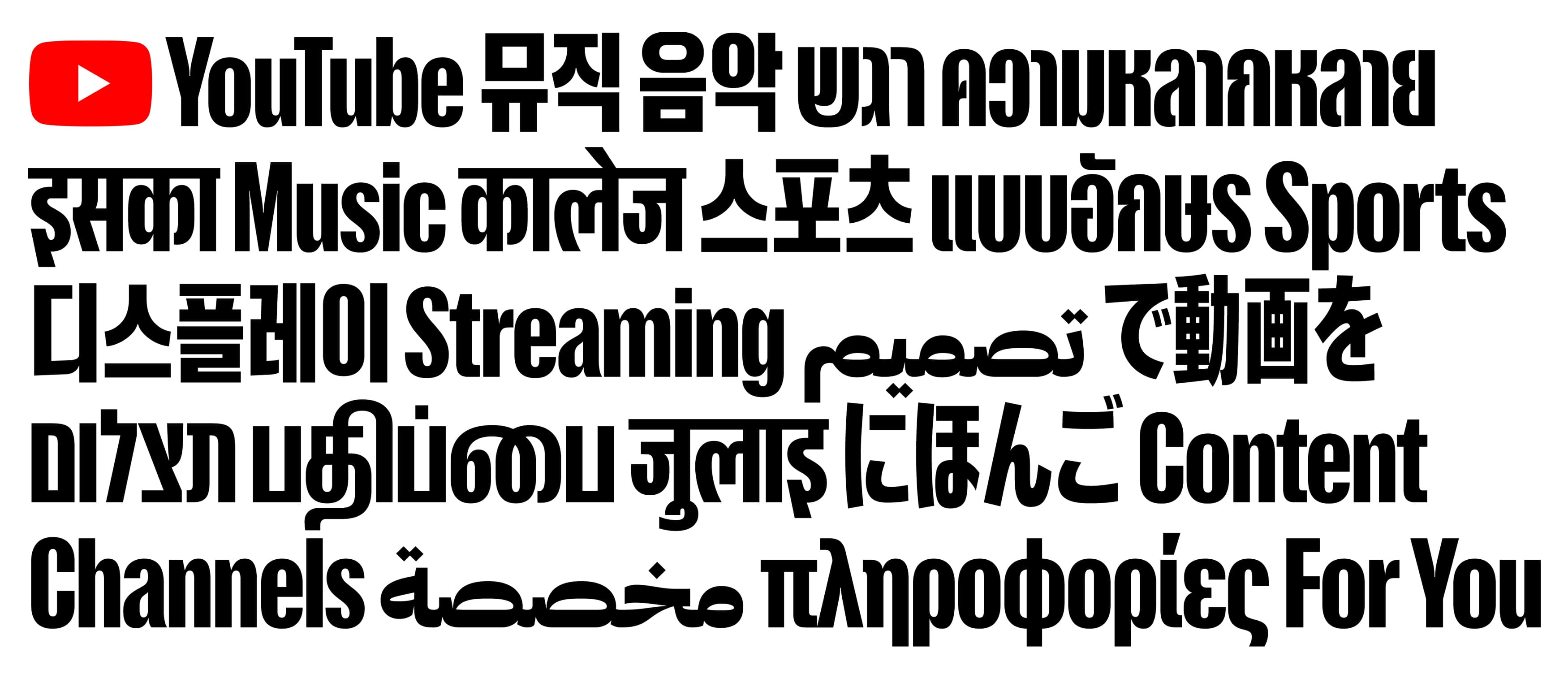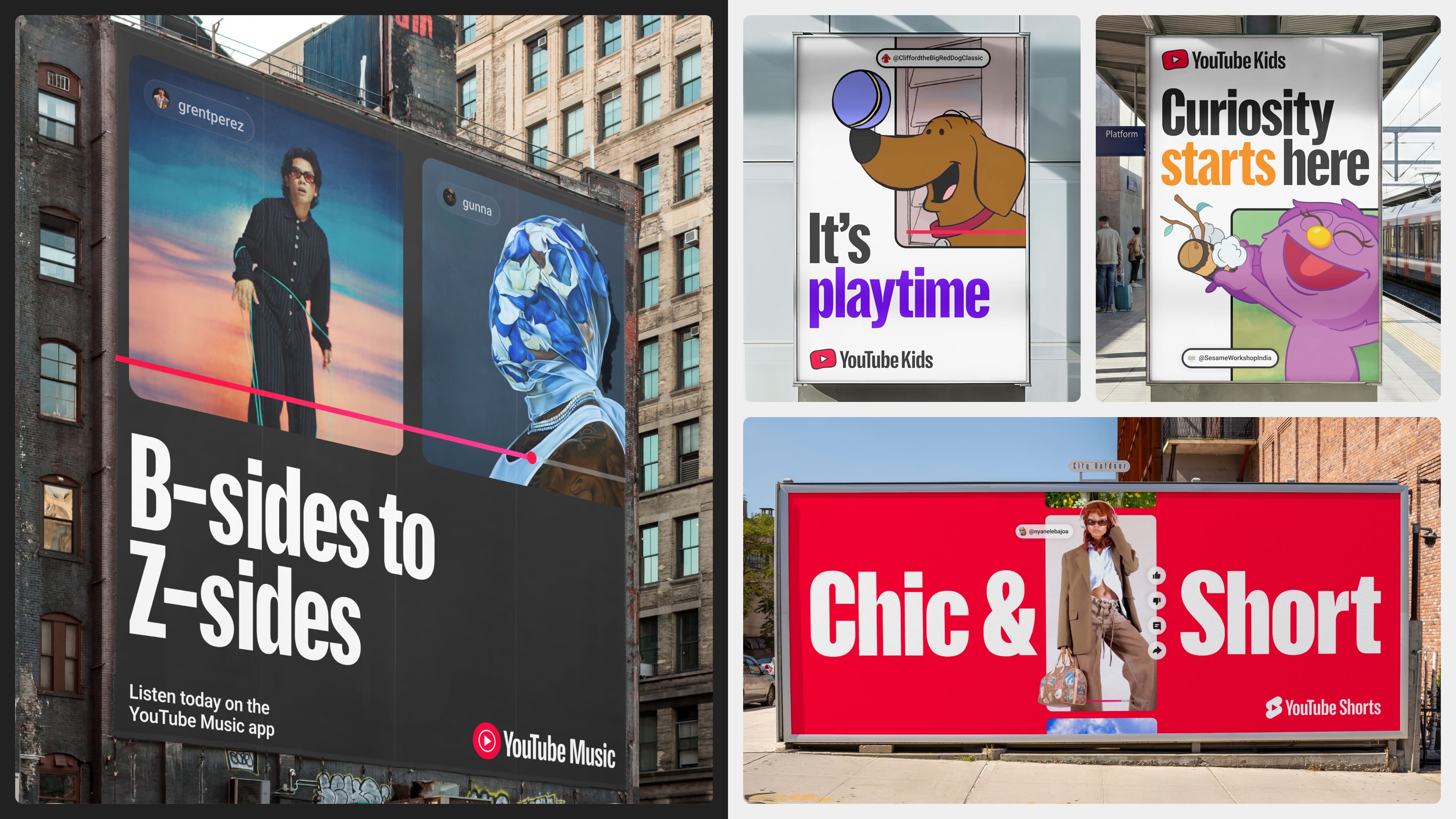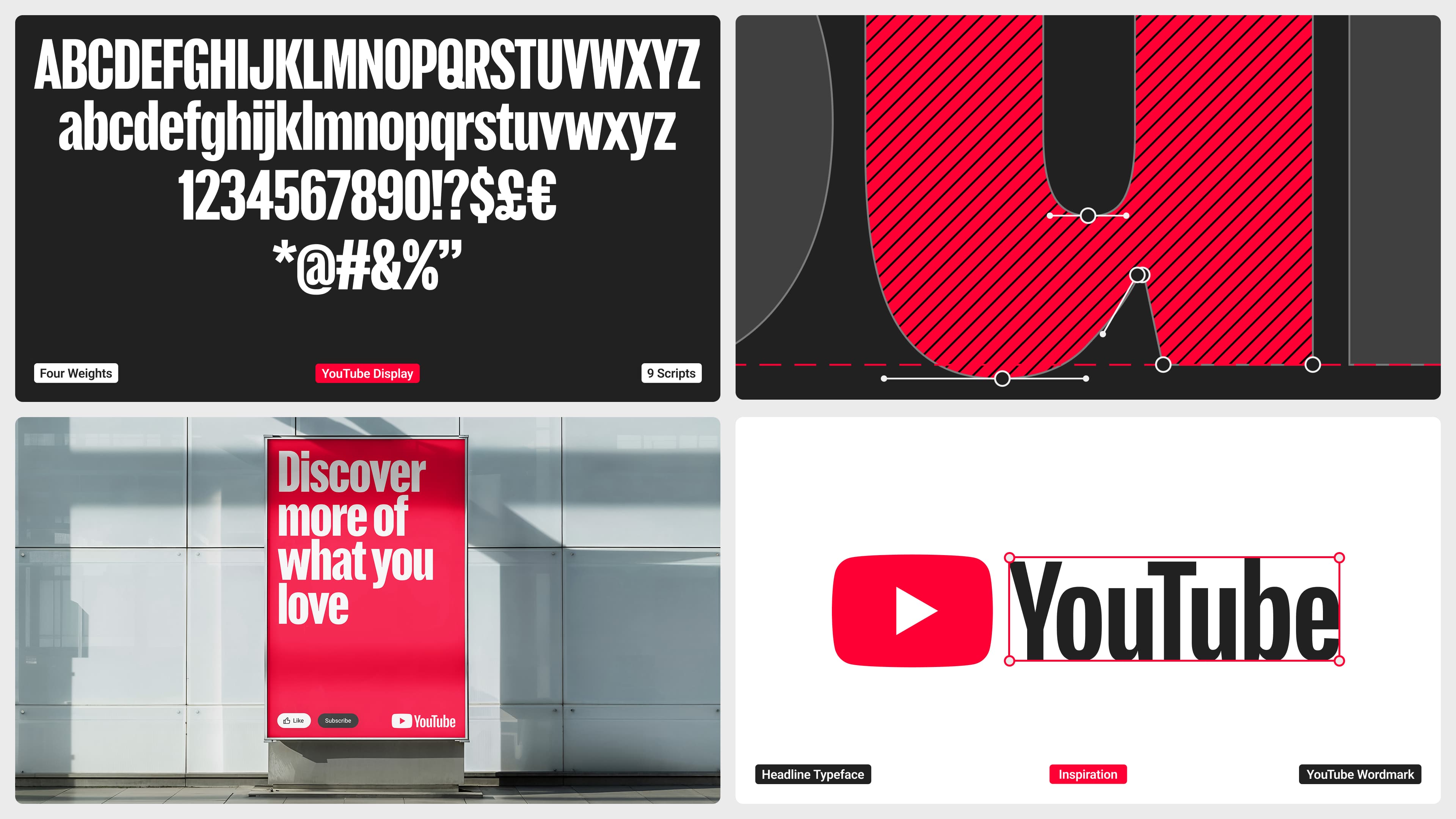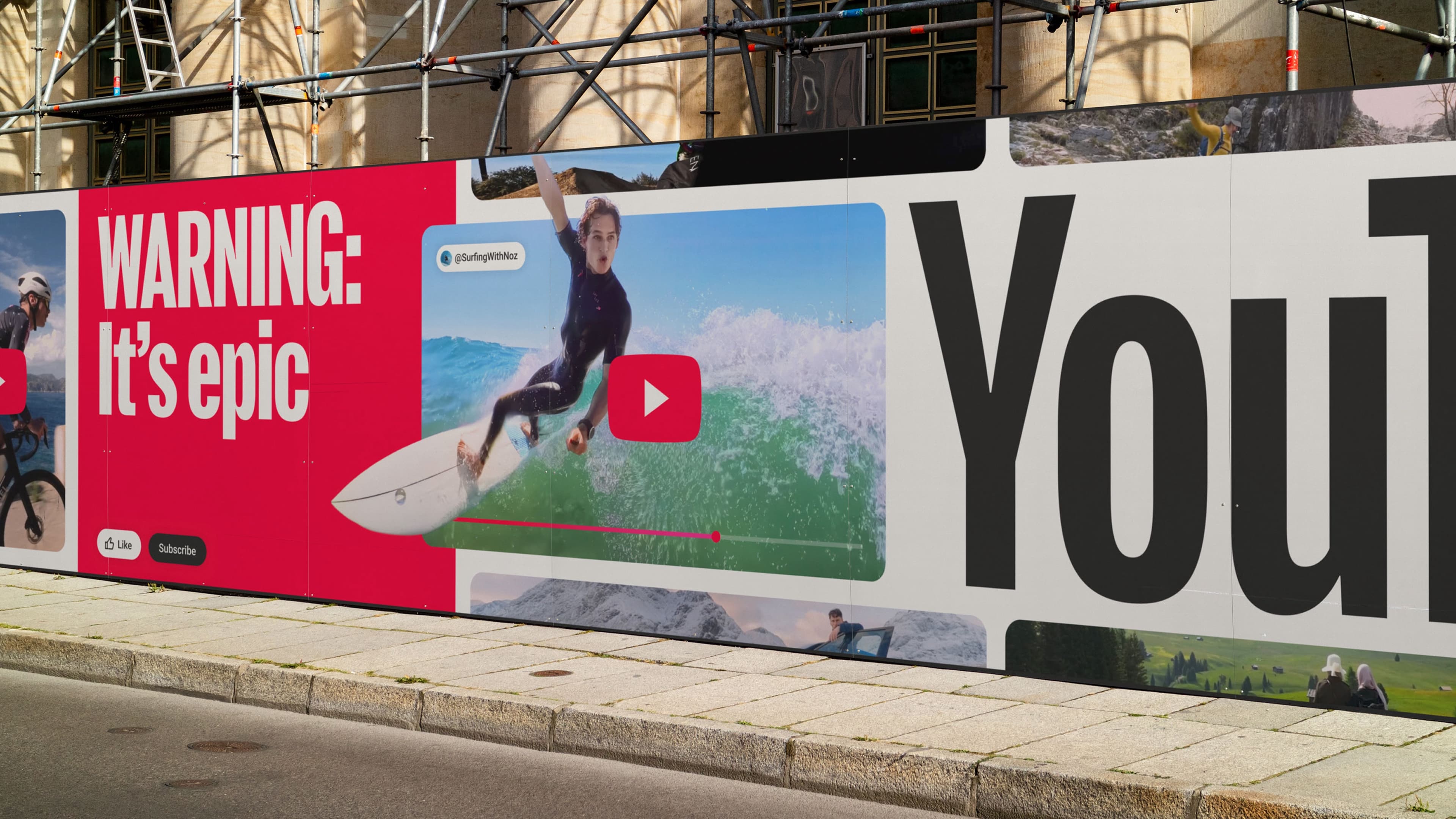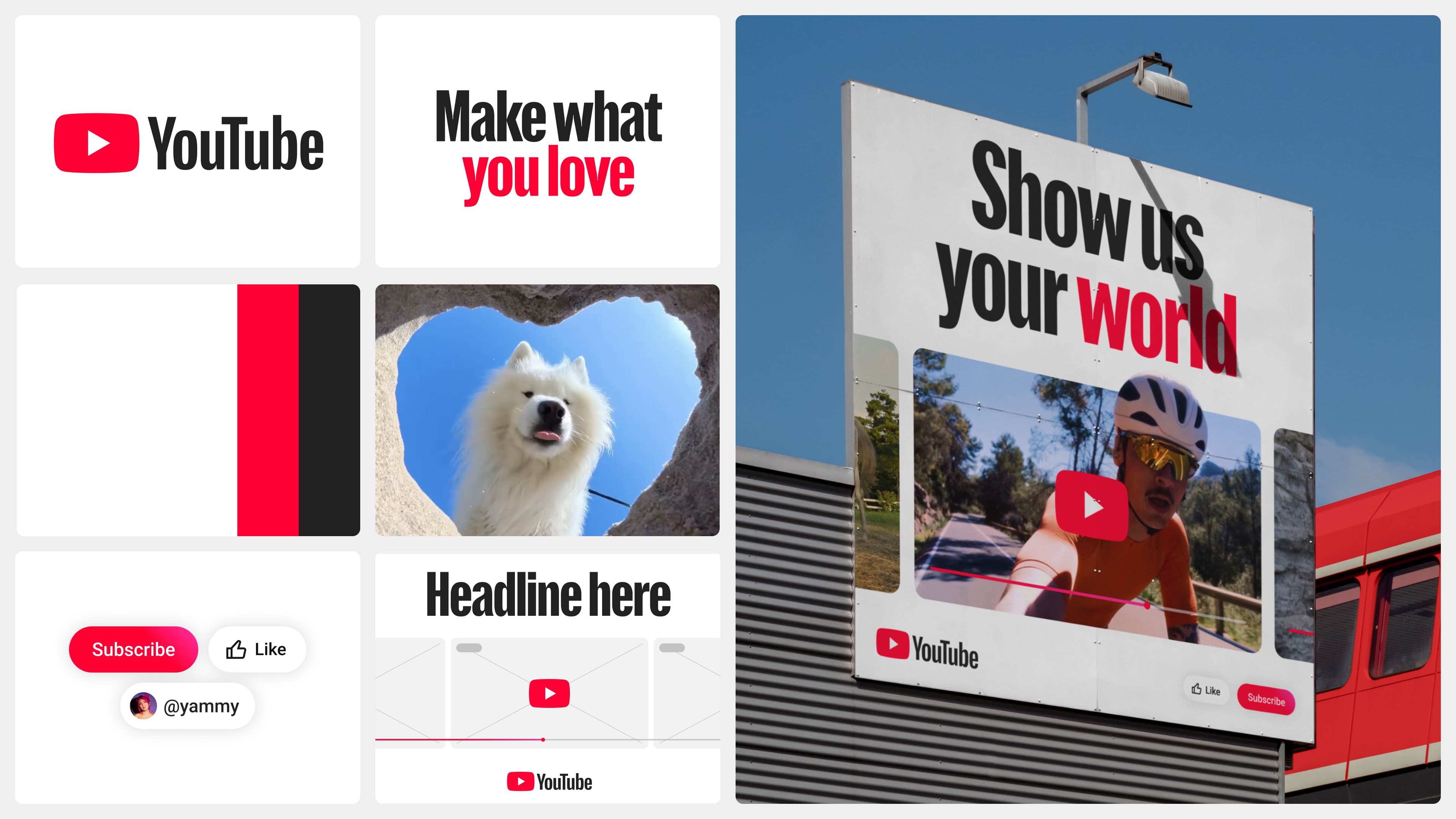
YouTube at 20: Designing a Brand That Lives With Culture
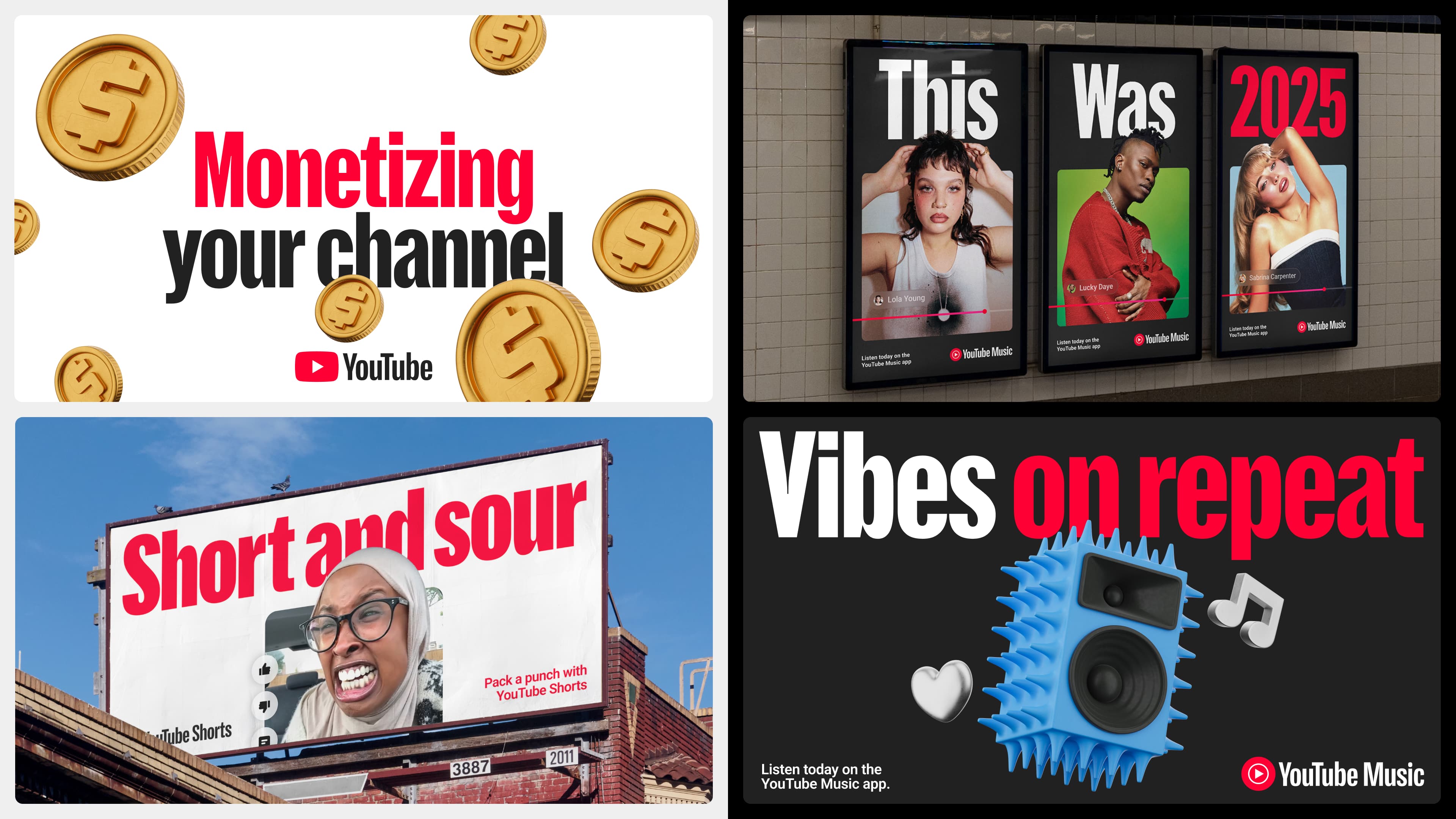
As platforms become infrastructure, rebranding them becomes less about reinvention and more about responsibility. YouTube’s new identity arrives at a moment when platforms must decide whether they shape culture or simply chase it.
This year, YouTube turns 20, and the company has unveiled a new global marketing identity developed in-house by YouTube Creative Studio that reflects its evolution from a video-sharing platform into a fully fledged entertainment brand. Designed to unify its expanding ecosystem, including Shorts, Music, TV, Premium, and Kids, the refresh introduces a cohesive framework intended to reconnect a brand that now lives everywhere audiences do, without losing its cultural center.
Over time, YouTube’s sub-brands, design languages, and tones of voice had grown in parallel, each optimized for its own context. The challenge, according to the team, wasn’t to flatten those differences, but to bring them back into alignment; to create a system that could feel unified without becoming rigid, expressive without becoming fragmented. “When a brand lives everywhere, it risks feeling like nowhere,” says Kieran Mistry, who led the project during his tenure at YouTube’s in-house Creative Studio EMEA. “Our task wasn’t to reinvent YouTube, but to design a system that connects its many sides unified but never uniform”.
“When a brand lives everywhere, it risks feeling like nowhere.”
— Kieran Mistry
The strategic anchor for the work is a deceptively simple idea: Alive. Because content is YouTube’s heartbeat, the team recognized that the brand could no longer sit outside of it. Instead, it needed to move with it; reacting, shifting, and responding in ways that mirrored the spontaneity and humanity of the platform itself. That thinking shaped every design and motion decision, resulting in a system that feels dynamic rather than declarative, human rather than imposed.
Notably, the refresh resists the temptation to start over. YouTube’s most recognizable assets, the red, white, and black palette, the play bar, familiar UI cues, and the cultural shorthand of “like, subscribe, share”, remain intact. Rather than replacing them, the system re-energizes them, giving existing elements greater range, personality, and expressive capacity while preserving the equity that made them iconic in the first place. As Mistry puts it, “YouTube didn’t need to throw everything out and start again it’s already a cornerstone of the internet. Our job was to evolve what people know and love, and make it feel expressive and connected for what’s next”.
One of the most significant additions is YouTube Display, a custom display typeface developed in collaboration with Sharp Type. Built directly from the equity of the YouTube logo, the typeface provides a consistent yet flexible voice across all touchpoints. Crafted in nine global scripts, it reinforces brand recognition while allowing for nuance across markets, an essential consideration for a platform whose reach is inherently global.
Illustration has also been elevated from accent to system. Developed in collaboration with Gesture Systems, the new illustration style balances clarity with character, designed to feel both iconic and alive. Simple, bold, and confident, yet playful and curious, the illustrations echo the diversity and unpredictability of the content they support, while remaining unmistakably part of the YouTube ecosystem.
Perhaps the most defining evolution is YouTube’s first formal motion identity. Motion behaviors such as “Camera Shake” intentionally mimic natural camera movement, reflecting the rhythm of real content rather than imposing a manufactured smoothness. Motion here functions as language, not ornament, capturing the energy, immediacy, and humanity that have always driven the platform’s success. “The brand isn’t static anymore,” says Matt Saint, who led design alongside Mistry. “It reacts to real content and culture, evolving alongside new products, technologies, and audiences as YouTube continues to grow”.
“The brand isn’t static anymore.”
— Matt Saint
Flexibility was central to the system’s design. Each product within YouTube’s growing family still needs to speak meaningfully to its specific audience, but now does so within a shared framework that reinforces connection rather than competition. The result is an ecosystem that feels coherent without being constrained, one that is capable of evolving as quickly as the culture it reflects.
That this work was created entirely in-house is also significant. “Creating this in-house has been incredibly rewarding,” says Mistry. “It’s shown what’s possible when a small, close-knit team works with focus and belief, building a system that’s not just beautiful, but genuinely useful for everyone who touches the brand.” Saint echoes that sentiment: “This was never about decoration. It’s about creating a design system that works uniting YouTube’s ecosystem and empowering teams everywhere to build from it confidently”.
As the new identity rolls out globally, from New York to Mumbai, Kyoto to London, it marks a defining moment for YouTube. At 20 years old, the brand is no longer chasing novelty. Instead, it is designing for continuity, responsiveness, and cultural fluency; proving that when a brand truly understands its role in the world, evolution doesn’t require disruption. It simply requires staying alive to the people, stories, and creative energy that made it matter in the first place.